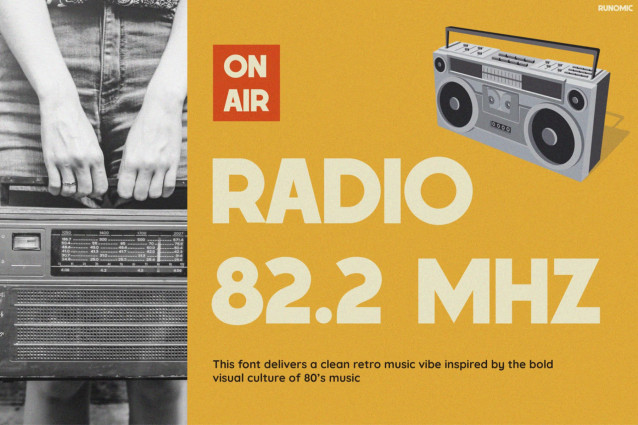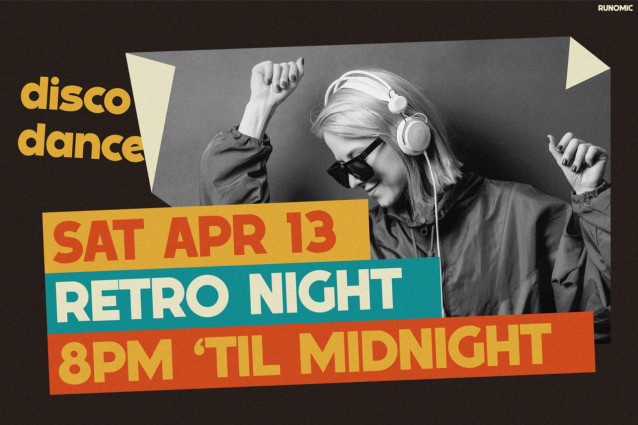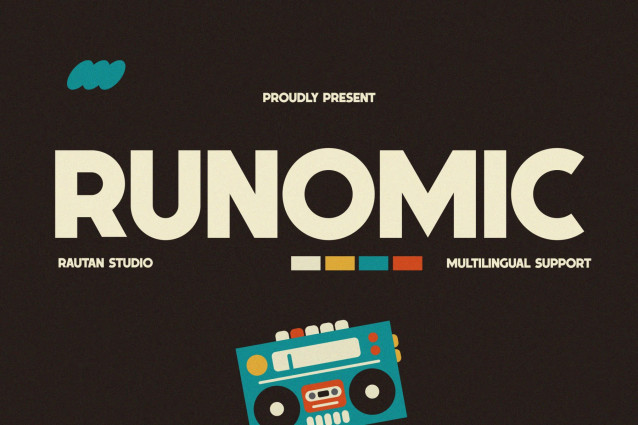
Runomic Font
Runomic – Bold Retro Groove Font for Vintage Posters & Funky Headlines
Retro Font Runomic delivers bold retro energy with a playful vintage style. Inspired by cassette culture, disco posters, and classic radio graphics, this font instantly grabs attention. Moreover, its chunky shapes, smooth curves, and geometric structure create a strong visual impact. The bold style feels nostalgic yet modern. As a result, it becomes perfect for eye-catching typography.
Runomic is designed to make headlines louder, warmer, and more memorable. In addition, it works beautifully for both print and digital projects. The font also supports 67 languages, allowing creators to reach global audiences with ease.